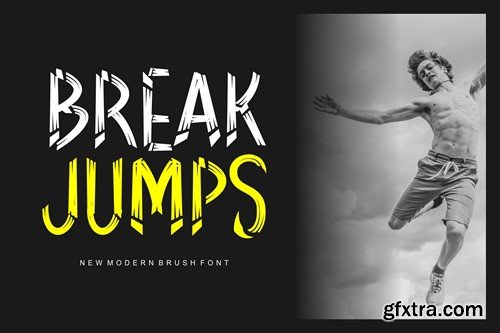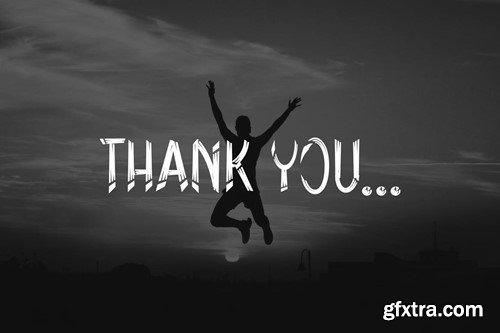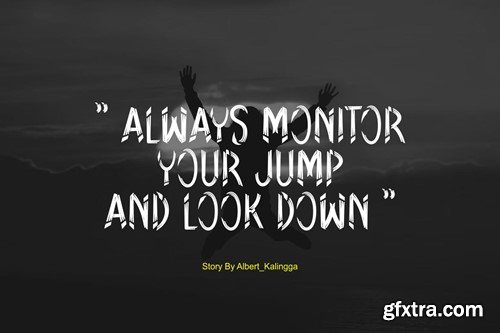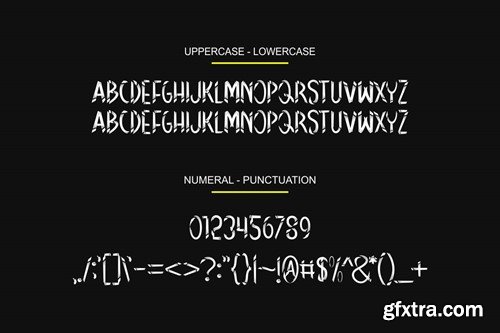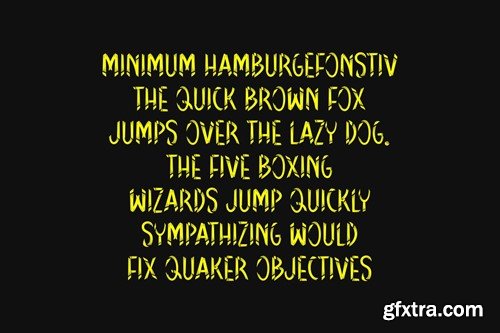
Break Jumps Font
Introducing our new product Break Jumps Font - Modern Font is a bold and authentic display font. The font is suitable for any branding project like logo, esport, and many more. outstanding in a wide range of contexts. availlable